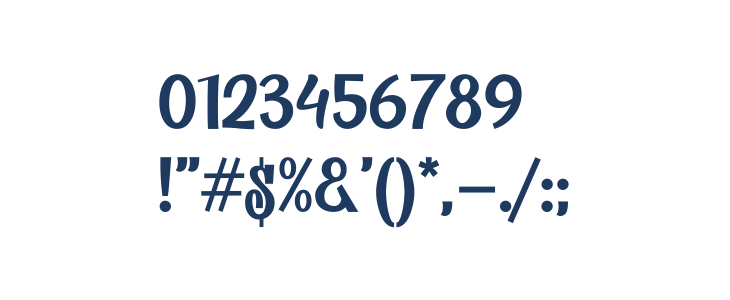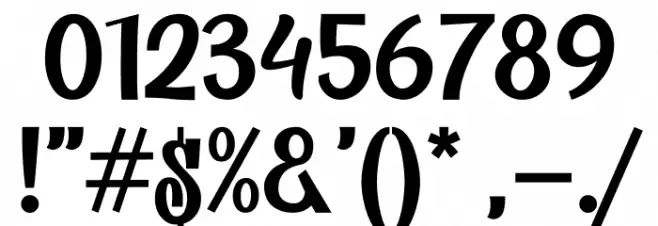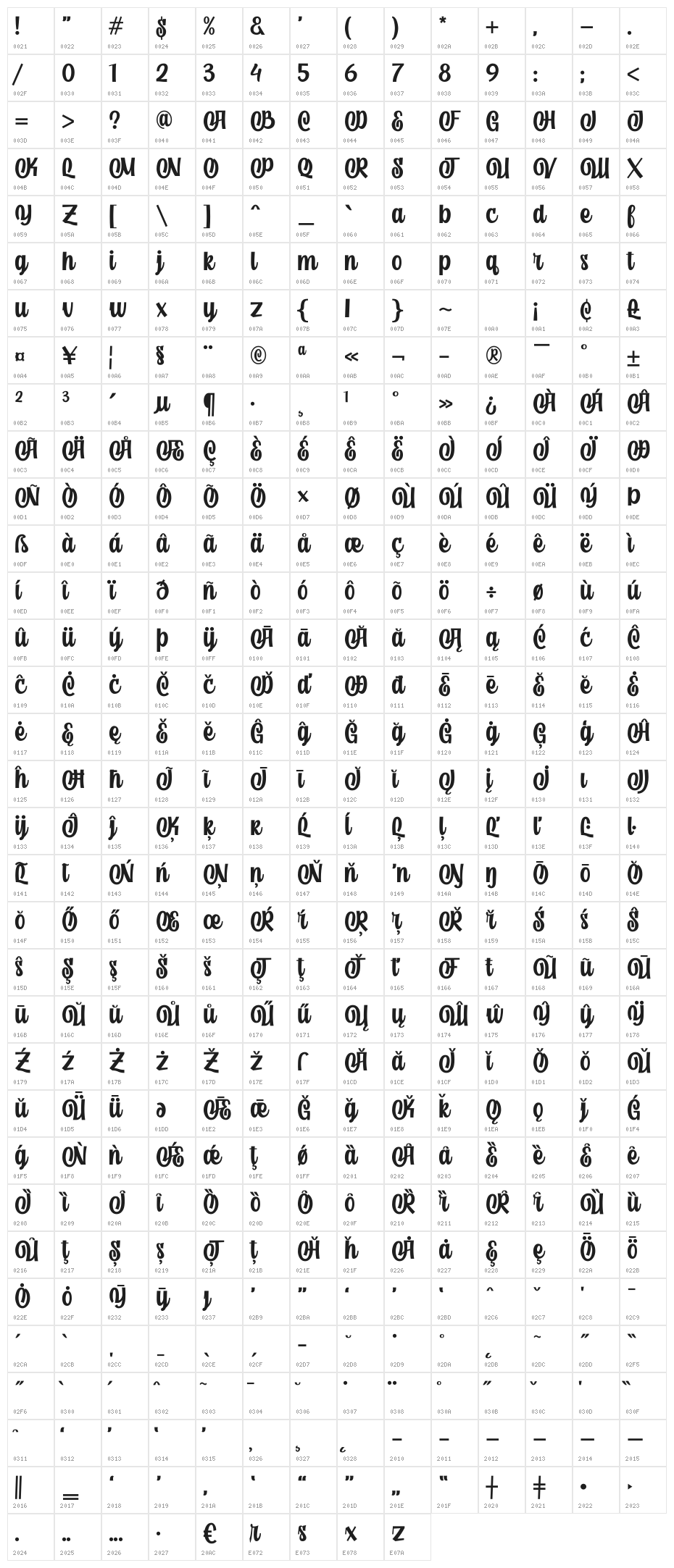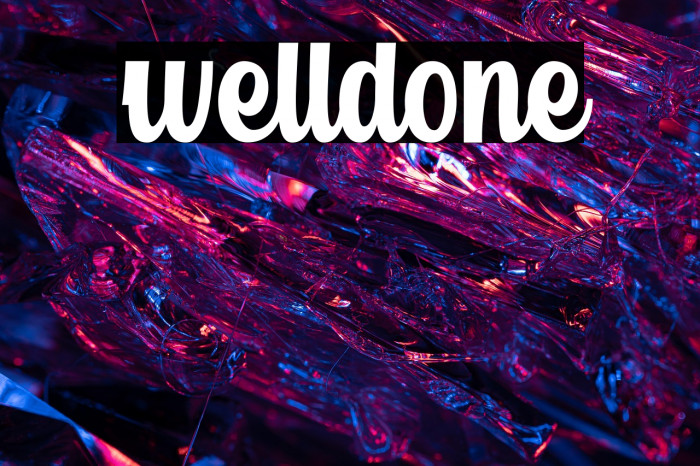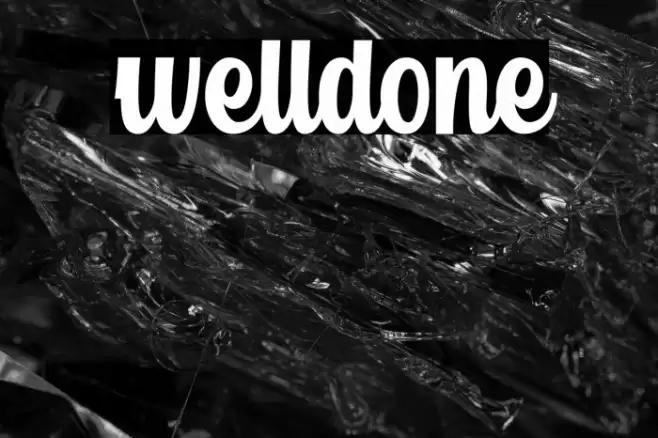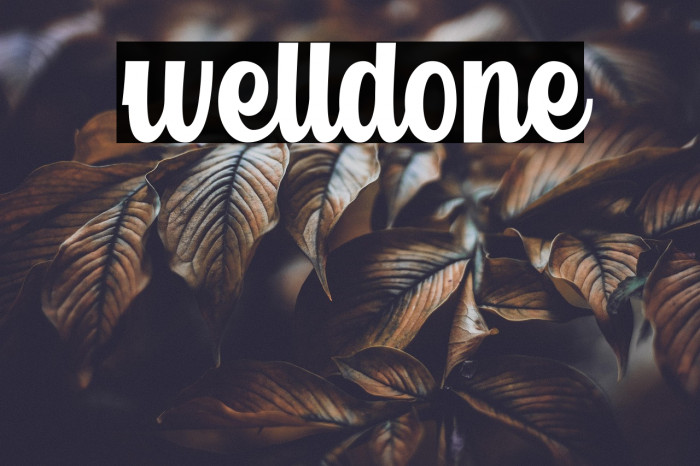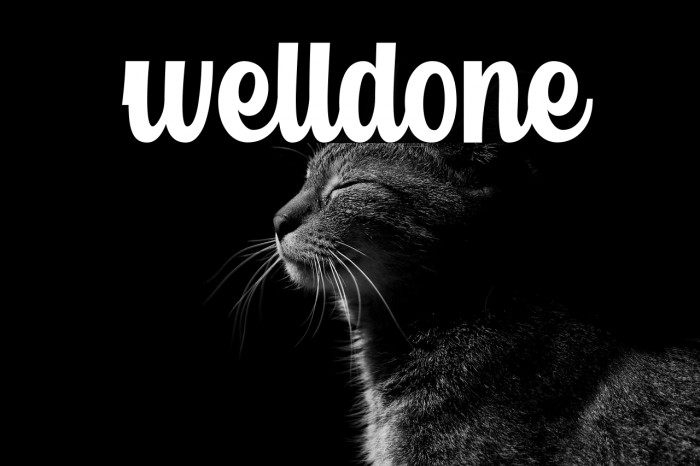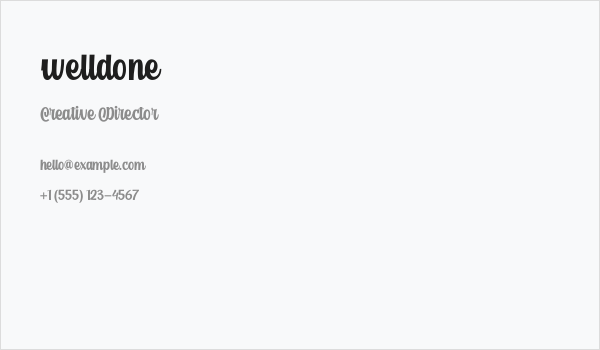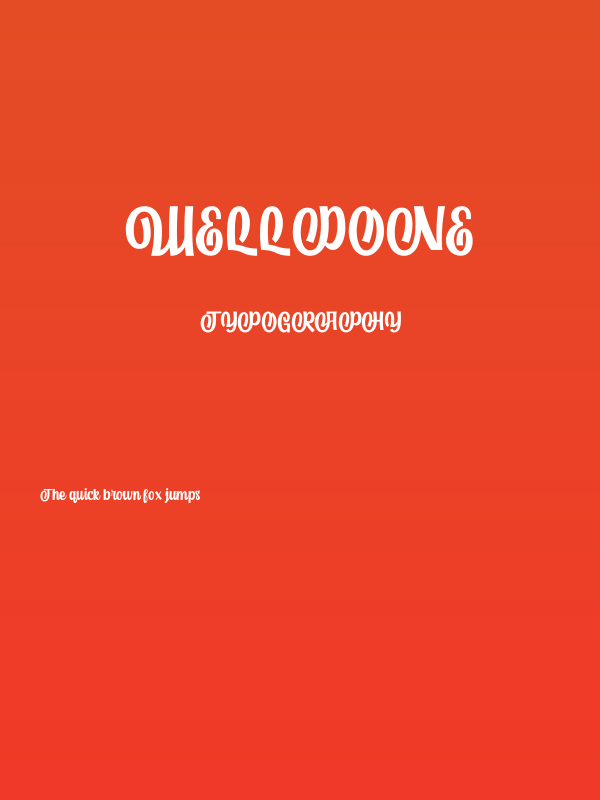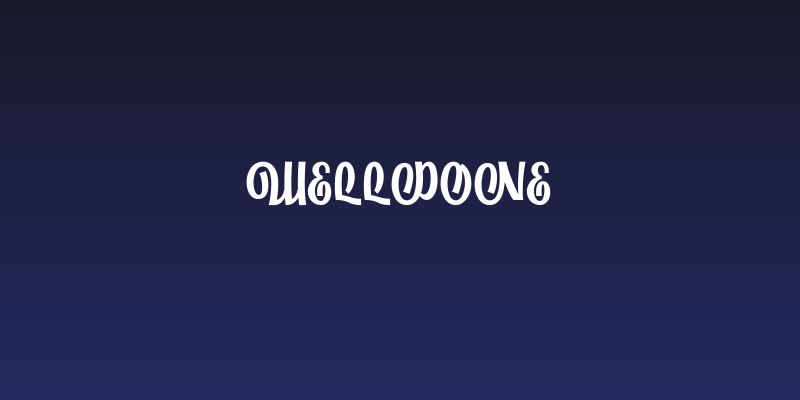
welldone Font
welldone Description
This font features a bold and playful style with a strong presence. The uppercase letters have a unique, almost whimsical design with rounded edges and a slight slant, giving them a dynamic appearance. The lowercase letters maintain a consistent flow, with some characters like 'g' and 'y' having distinctive loops. The numerals are bold and clear, making them easily readable. Special characters are creatively designed, adding to the font's overall charm. This font is ideal for projects that require a fun and engaging look.
| Proposed Projects | Perfect for children's books, playful branding, posters, and creative invitations. |